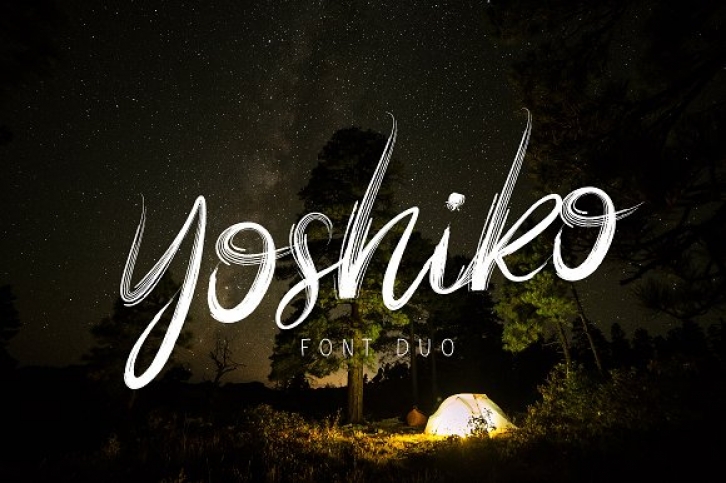
The Yoshiko Font Duo is a stunning team that brings the hand-brushed and linear world together.
This playful duo works together perfectly and is the perfect solution for many different types of creative projects.